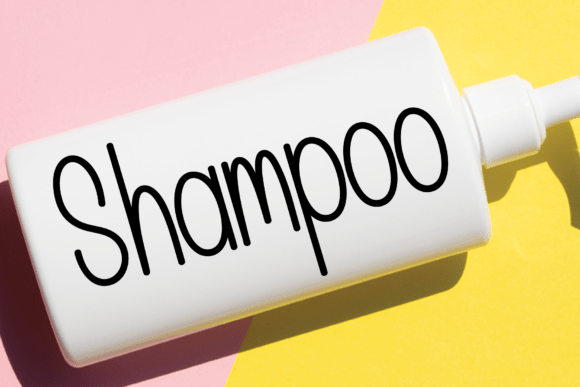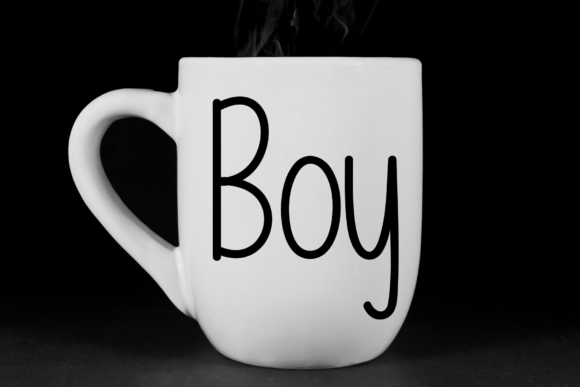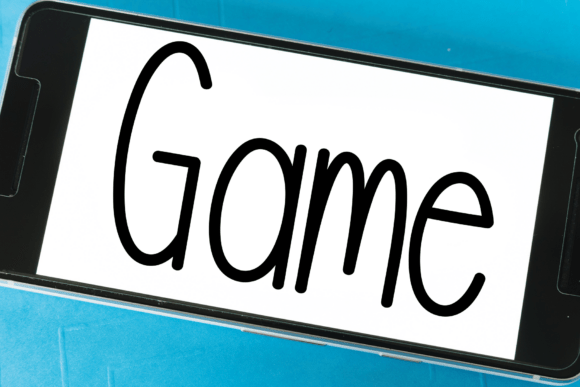
Introduction to Paradise Getaway Font
Remember the feeling of unwinding on a tropical beach, surrounded by swaying palm trees and crystal-clear waters? That’s exactly the vibe you’ll get when you use the Paradise Getaway Font in your next creative project. This stunning handwritten font is designed to evoke a sense of relaxation and sophistication, making it perfect for branding, logos, and marketing materials.
As a designer, you’re always on the lookout for high-quality design resources that can help you stand out from the crowd. That’s where the Paradise Getaway Font comes in – a free download that’s perfect for adding a touch of elegance to your designs. With its transparent background and sporty feel, this font is a must-have for any creative project. Whether you’re working on a wedding invitation or a fashion lookbook, the Paradise Getaway Font is sure to bring a sense of luxury and sophistication to your work.
Key Features of Paradise Getaway Font
- High-quality, professional font perfect for creative projects and design resources
- Unique, tropical-inspired design elements, including palm trees, hibiscus flowers, and more
- Perfect for use in design projects, such as travel brochures, magazine layouts, and website graphics
Honest Review: Paradise Getaway Font
I recently had the opportunity to work with the Paradise Getaway Font for a creative project, and I must say it’s been a mixed bag. On the one hand, I was initially drawn to its free download and transparent background, which made it a great design resource for my project.
- ✨ High-quality characters that rendered well in various sizes and resolutions.
- ✨ A unique, tropical vibe that perfectly captured the essence of my project’s theme.
- ✨ The font’s transparency feature allowed for seamless integration with background images and graphics.
However, I encountered a few limitations that prevented me from giving it a perfect score.
- ⚠️ Limited character set, which made it difficult to use for projects requiring extensive typing.
- ⚠️ Not all characters were perfectly optimized for small sizes, leading to some minor readability issues.
Overall, I’d say the Paradise Getaway Font is a solid choice for designers looking for a high-quality, unique font for personal or small-scale projects. However, its limitations may make it less suitable for larger, more complex designs.
Tips for Getting the Most Out of it
To get the most out of the Paradise Getaway Font, use it with a transparent background to create a beautiful and elegant design. This font is perfect for creating invitations, posters, or social media graphics.
The Paradise Getaway Font is ideal for a variety of creative projects, including:
- Travel and tourism brochures
- Restaurant and bar menus
- Social media graphics and advertisements